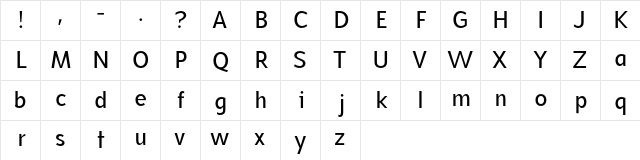
CF Gouble Demo Regular
Foundry: Creatifont Studio
Designer: Creatifont Studio
Design Context for CF Gouble Demo
CF Gouble Demo is a composed and adaptable typeface that performs quietly and consistently across a wide range of design contexts.